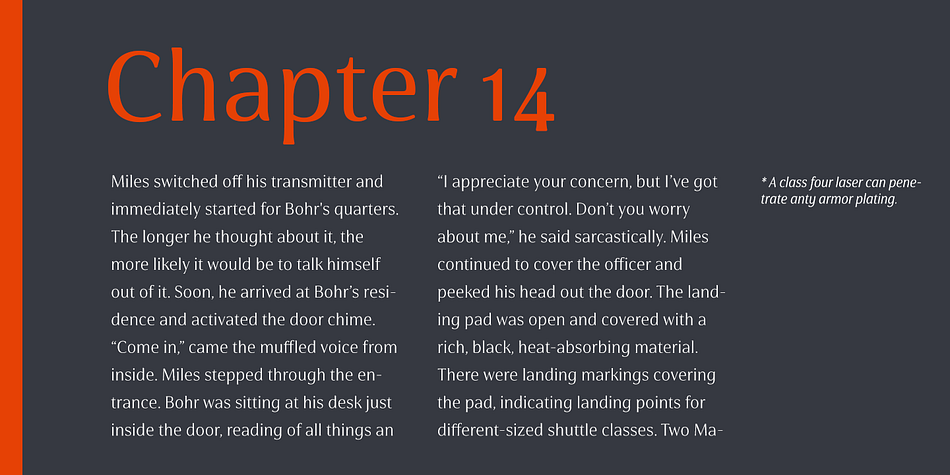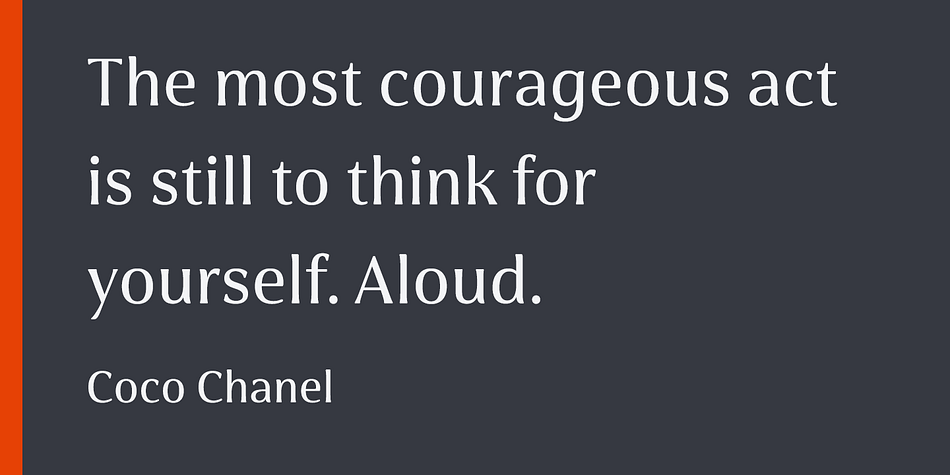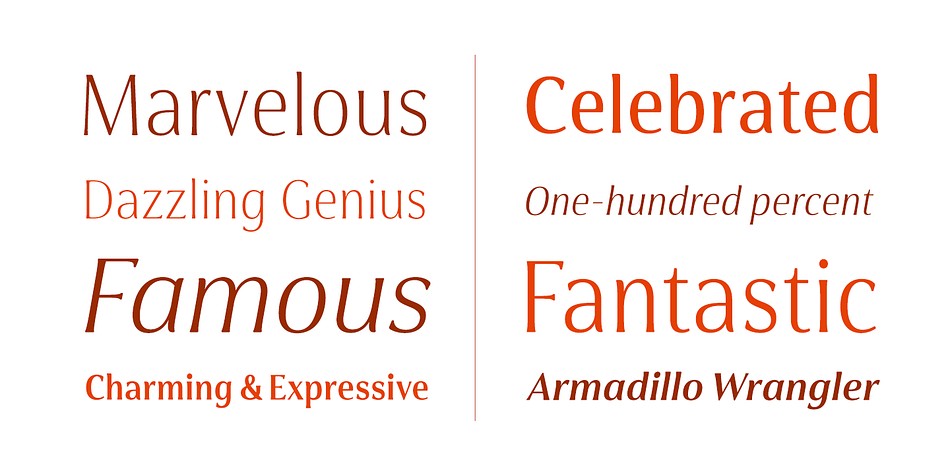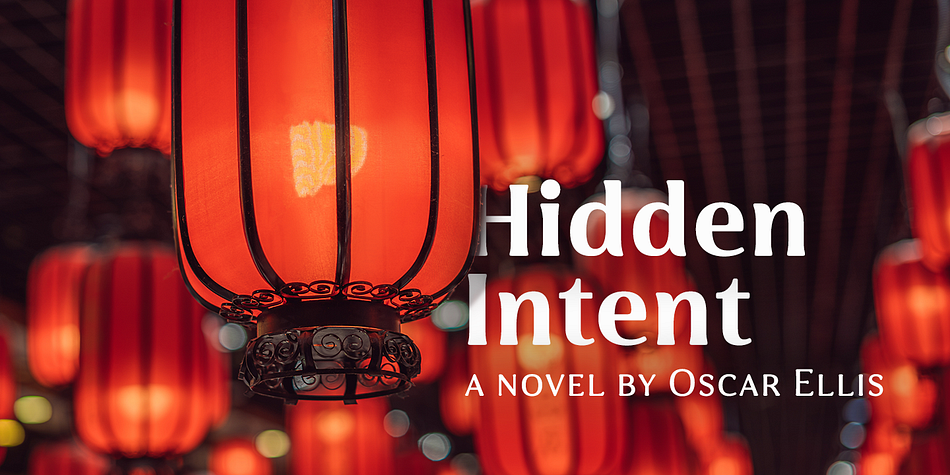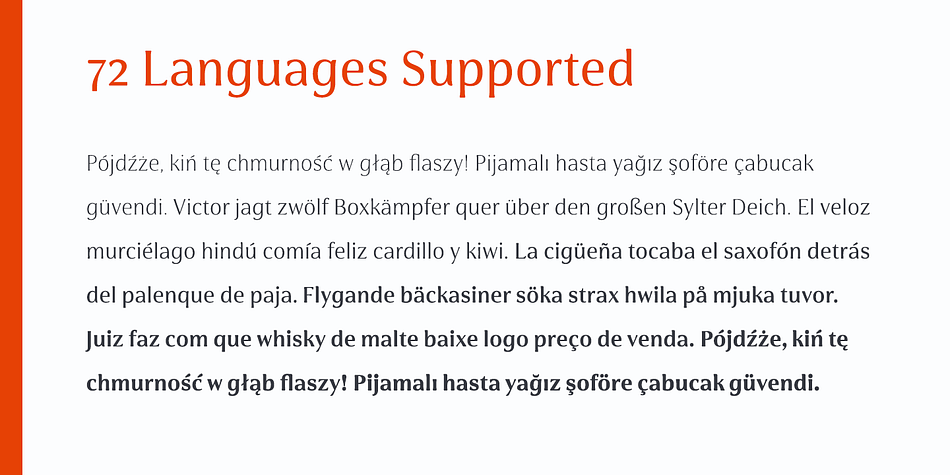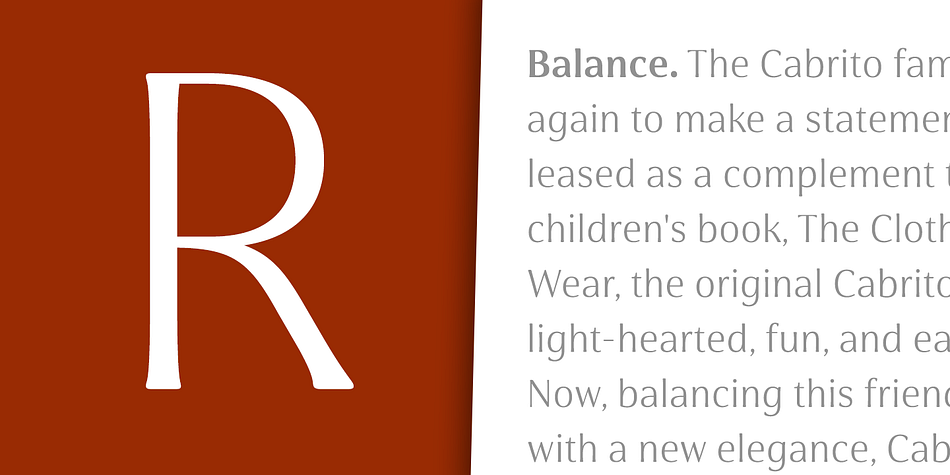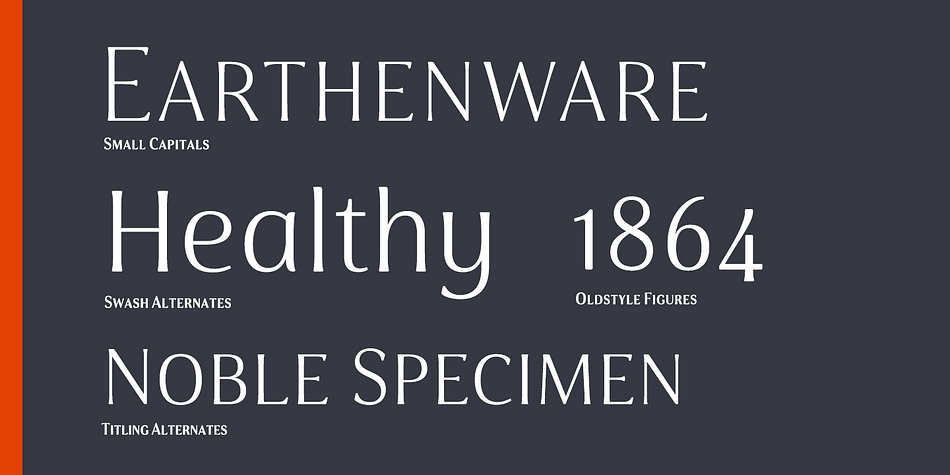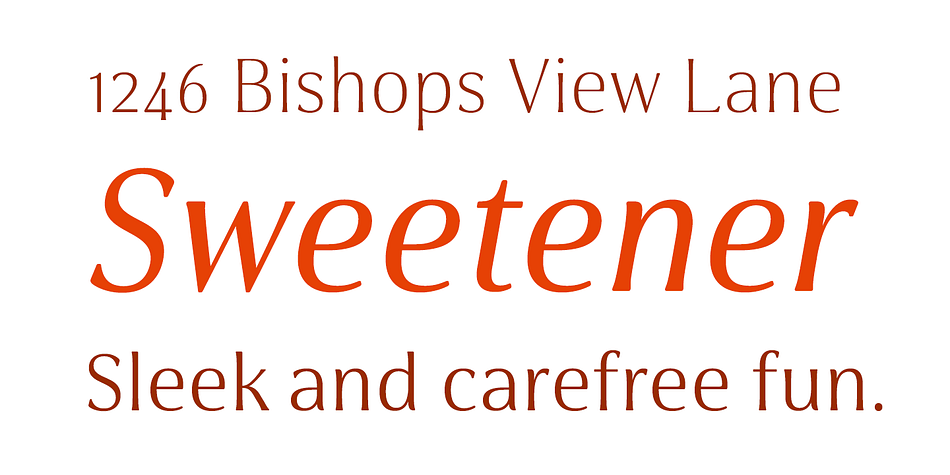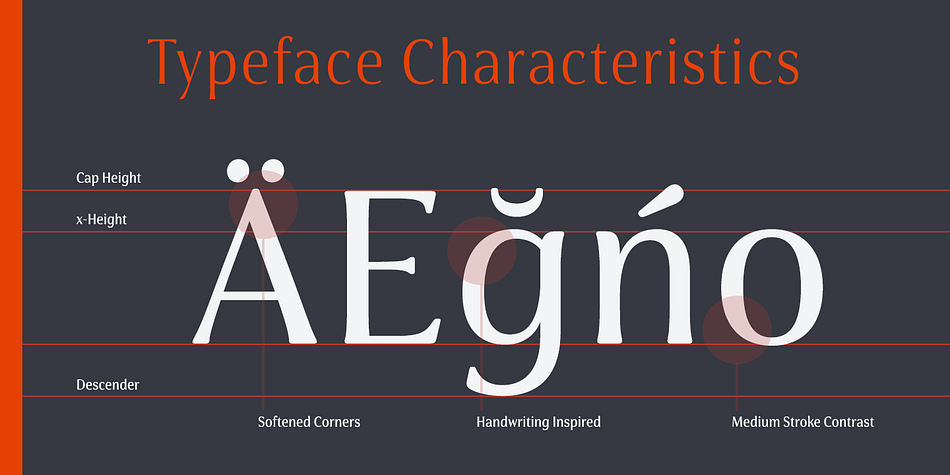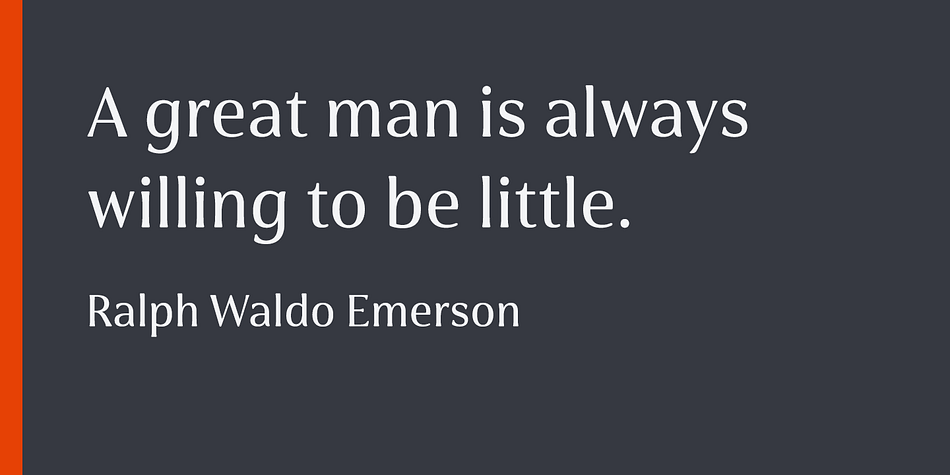
Designed by Jeremy Dooley, Cabrito Flare is a serif font family. This typeface has fifty-four styles and was published by Insigne Design.
“Cabrito Flare joins the Cabrito font family, a family designed to help younglings with the recognition of letter shapes. The original fonts are part of the development of a children’s book, The Clothes Letters Wear. Cabrito Flare combines the simplicity and readability of the original Cabrito with an elegant flare serif.
Now, this latest addition brings a new flavor to the table. Cabrito Flare brings fluid, carefree, medium contrast fun. It takes a more calligraphic direction than most. Cabrito combines structure and handwriting. There’s a fluid balance of both characteristics, and Flare is no exception. It’s a unique combination of functional elegance with a little spice and a dollop of friendly. Fifty-four well-designed fonts give you many readable options to work with while developing your design.
Cabrito Flare includes a suite of OpenType features. Alternative forms, ligatures, figures, and titling caps are all here. Preview these functions in the interactive PDF manual. There are glyphs for 72 languages; more than 600 glyphs await you. Cabrito Flare is an excellent choice for websites, as well as for brochures and packaging. Like Cabrito, used by several visible brands, Cabrito Flare is also an excellent option to define your logo.
Try the taste of Cabrito Flare and be sure to dip in and sample some of the other Cabrito members: Original flavor, Didone, Sans, Serif, Semi, Contrast, and Inverto.”